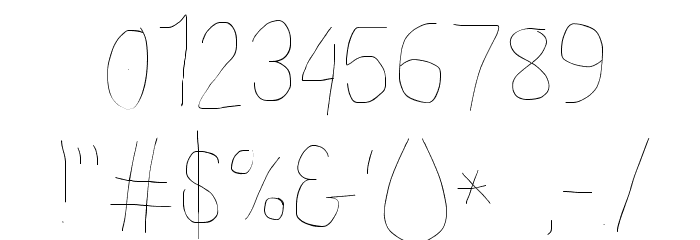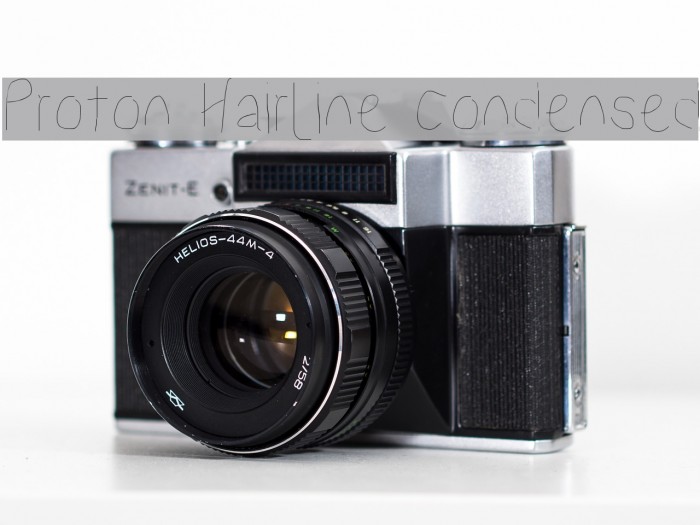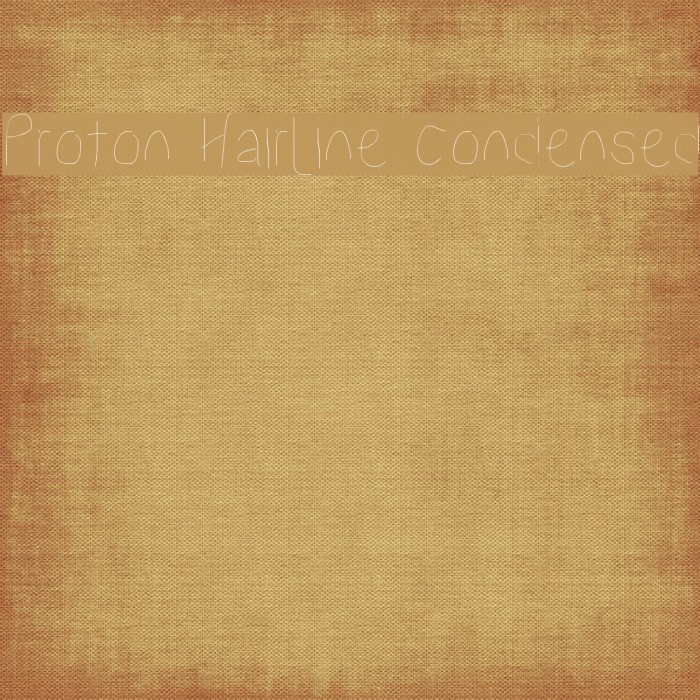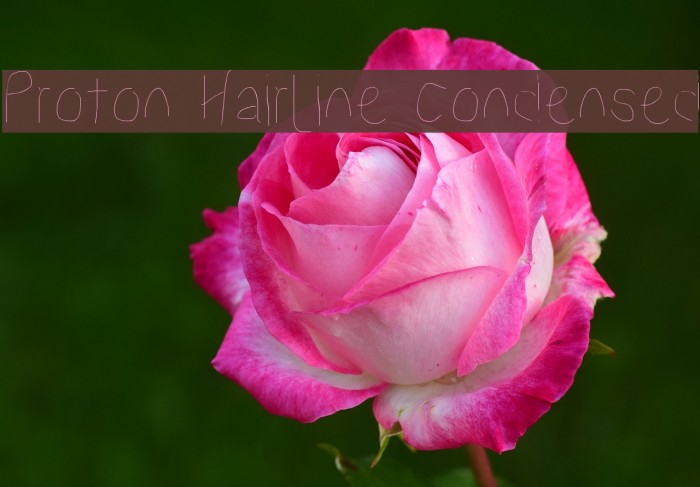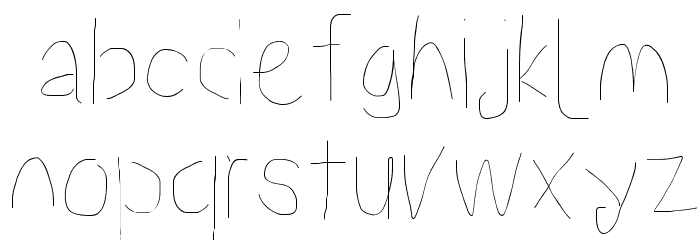
Proton Hairline Condensed Font
This font features an ultra-thin, delicate design with a condensed structure, giving it a sleek and modern appearance. The characters are elongated and narrow, with a consistent stroke width that maintains a minimalist aesthetic. The uppercase and lowercase letters share a similar height, enhancing the uniformity and clean lines of the typeface. The numerals and special characters are crafted with the same attention to detail, ensuring a cohesive look across all elements. This font's airy and open feel makes it suitable for projects that require a light touch.
A sleek, ultra-thin, and condensed font with a minimalist design.
• Proposed Projects: Ideal for modern branding, minimalist posters, elegant invitations, and contemporary web design.